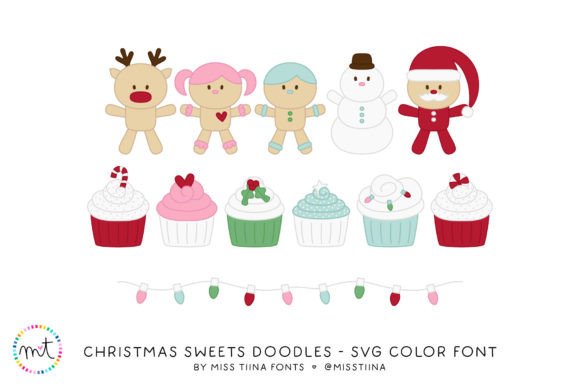
Christmas Sweets Doodles Font: A Deliciously Adorable Addition to Your Holiday Projects
Are you a designer, crafter, or DIY enthusiast looking for a unique and festive touch to add to your holiday projects? Look no further than the Christmas Sweets Doodles Font! This delightful font features 26 adorable, colorful, and doodled characters that are sure to bring a smile to everyone’s face. In this article, we’ll explore the magic of Christmas Sweets Doodles and how it can elevate your holiday creations.
What is Christmas Sweets Doodles Font?
Christmas Sweets Doodles Font is a digital font that includes 26 hand-drawn, doodle-style characters, each one representing a festive holiday theme. From candy canes to snowflakes, and from gingerbread men to Christmas trees, this font has everything you need to add a touch of holiday cheer to your projects. The characters are designed to be colorful and playful, making them perfect for a wide range of applications, from holiday cards and invitations to social media graphics and website decorations.
Key Features of Christmas Sweets Doodles Font
- 26 Adorable Characters: Each character is carefully hand-drawn to ensure a unique and playful look.
- Colorful and Doodled: The characters are designed to be bright and colorful, with a doodle-style that adds a touch of whimsy to your projects.
- Perfect for Holiday Projects: Whether you’re working on a holiday card, invitation, or social media graphic, Christmas Sweets Doodles Font has everything you need to make your project festive and fun.
Uses for Christmas Sweets Doodles Font
Christmas Sweets Doodles Font is incredibly versatile, making it perfect for a wide range of holiday projects. Here are a few ideas to get you started:
- Holiday Cards and Invitations: Add a touch of festive fun to your holiday cards and invitations with Christmas Sweets Doodles Font.
- Social Media Graphics: Use the font to create eye-catching social media graphics that will help your holiday promotions stand out.
- Website Decorations: Add some holiday cheer to your website with Christmas Sweets Doodles Font, perfect for decorating your homepage, blog, or online store.
- Crafting Projects: Use the font to add a personal touch to your holiday crafting projects, such as scrapbooking, paper crafting, or DIY gifts.
Tips for Using Christmas Sweets Doodles Font
Here are a few tips for getting the most out of Christmas Sweets Doodles Font:
- Experiment with Colors: Don’t be afraid to experiment with different colors and color combinations to find the perfect look for your project.
- Mix and Match Characters: Combine different characters to create a unique and playful look that reflects your personal style.
- Use with Other Fonts: Christmas Sweets Doodles Font pairs well with other fonts, so feel free to experiment with different font combinations to find the perfect look for your project.
| Font Name | Christmas Sweets Doodles Font |
| Author | Miss Tiina |
Christmas Sweets Doodles Font is a deliciously adorable addition to any holiday project. With its 26 colorful and doodled characters, this font is perfect for designers, crafters, and DIY enthusiasts looking to add a touch of festive fun to their creations. Whether you’re working on a holiday card, social media graphic, or crafting project, Christmas Sweets Doodles Font is sure to bring a smile to everyone’s face. So why wait? Download Christmas Sweets Doodles Font today and start creating your own holiday magic!